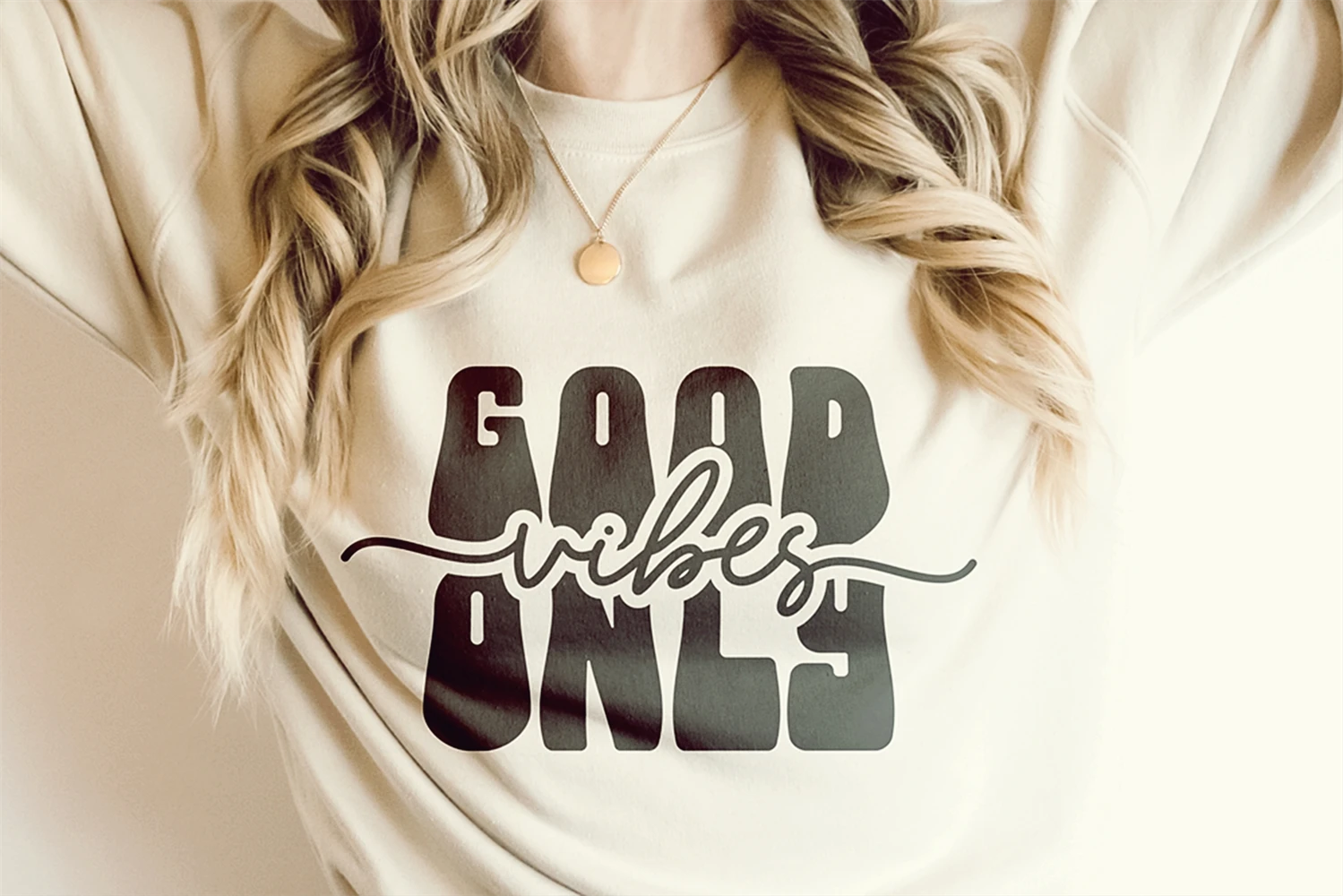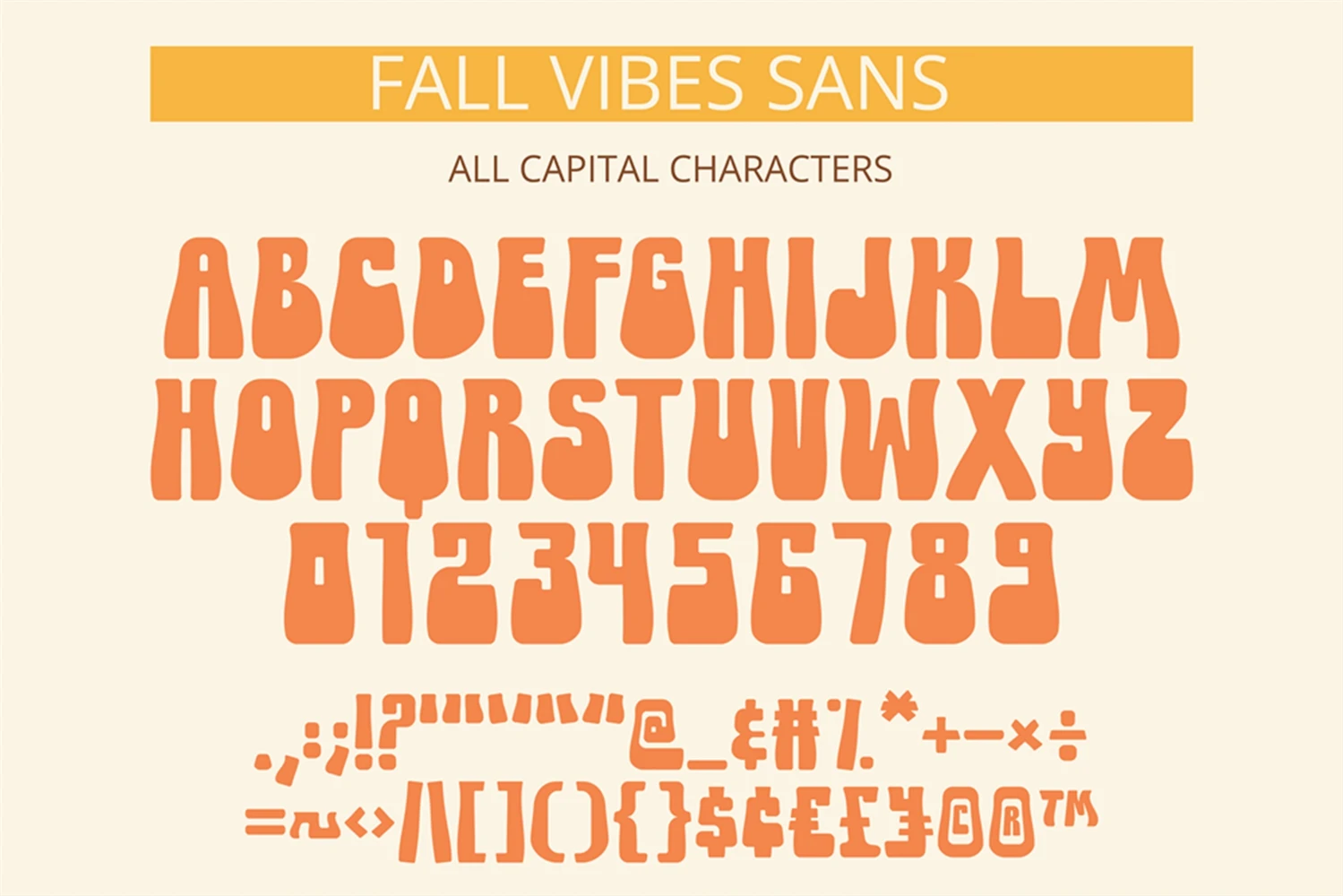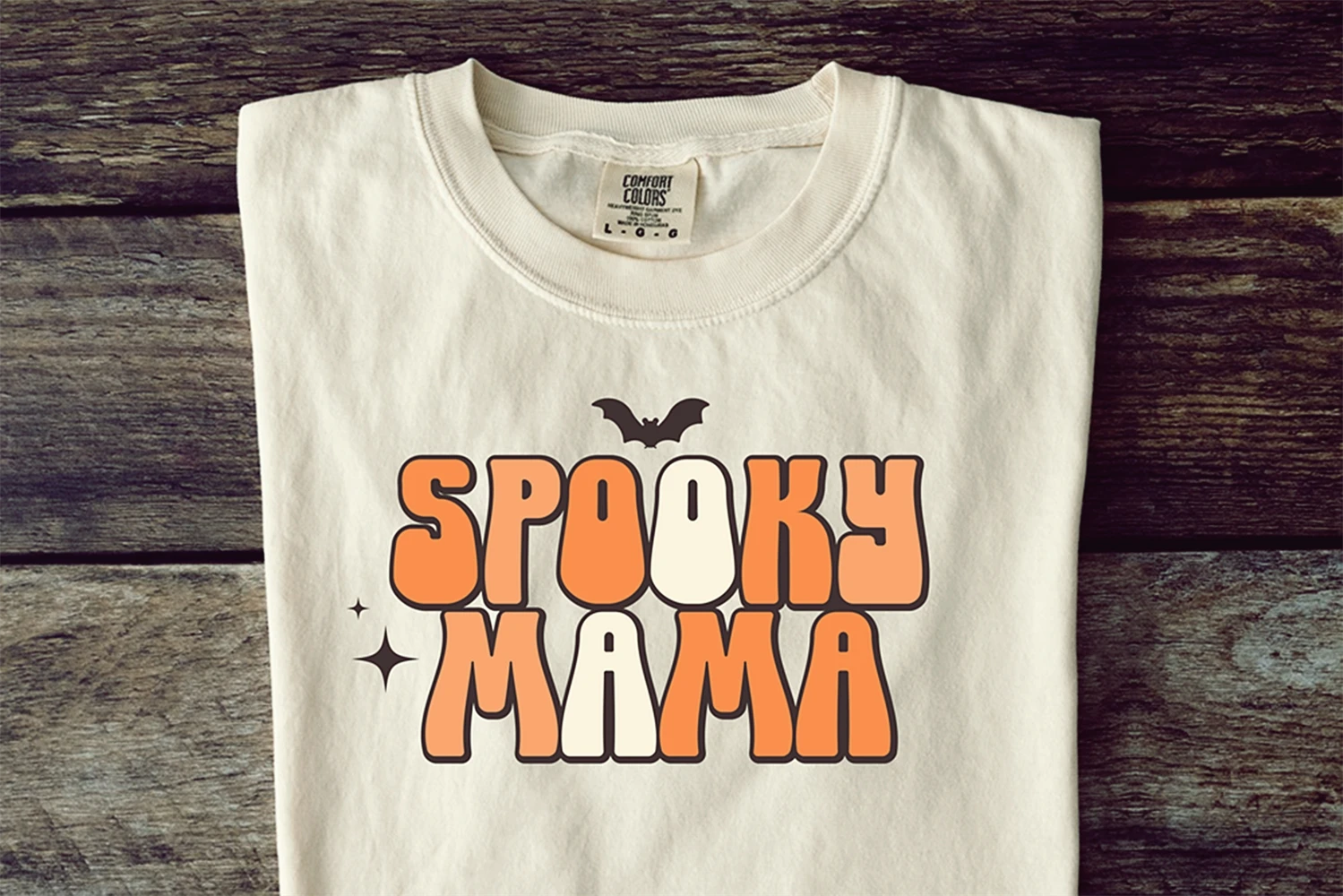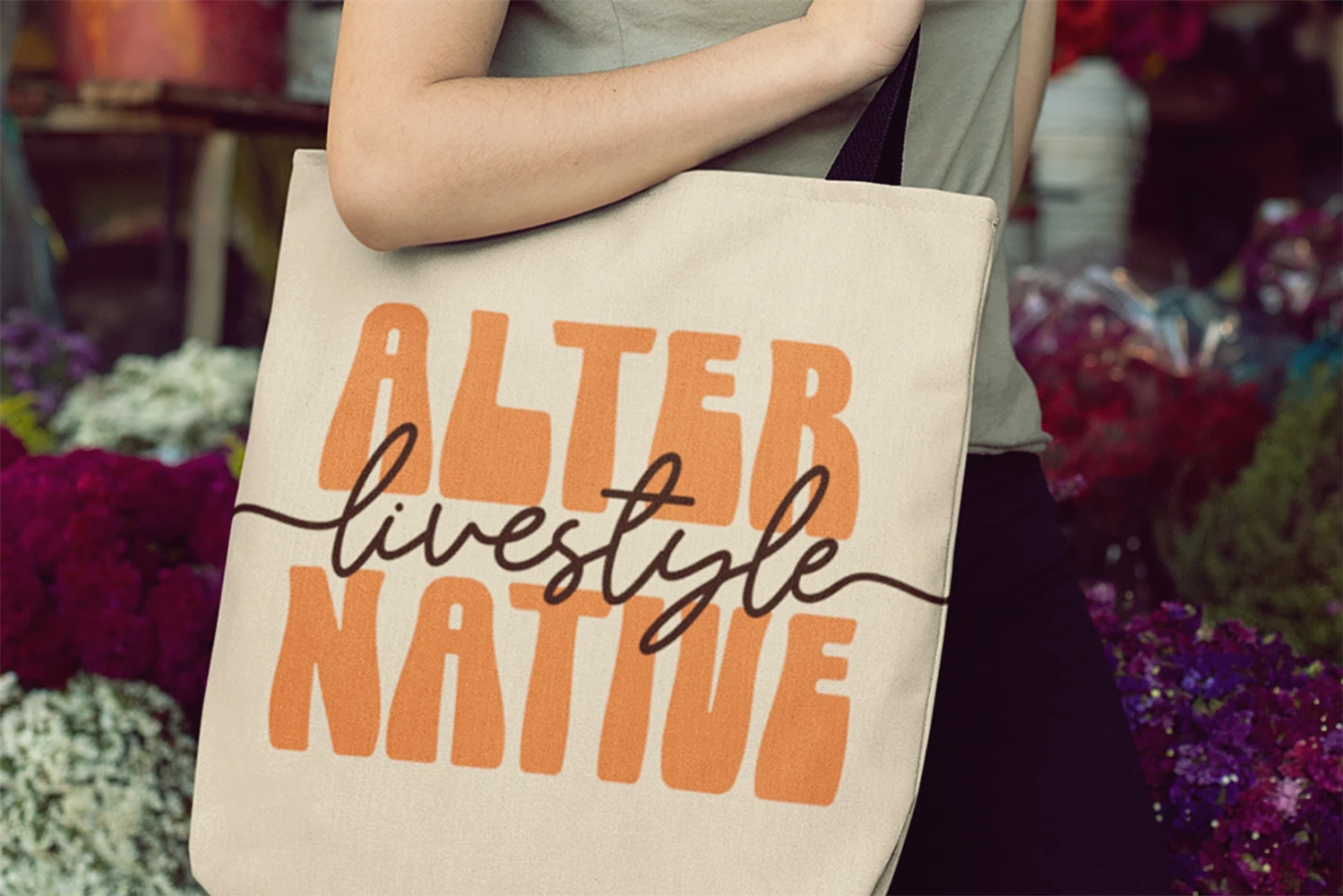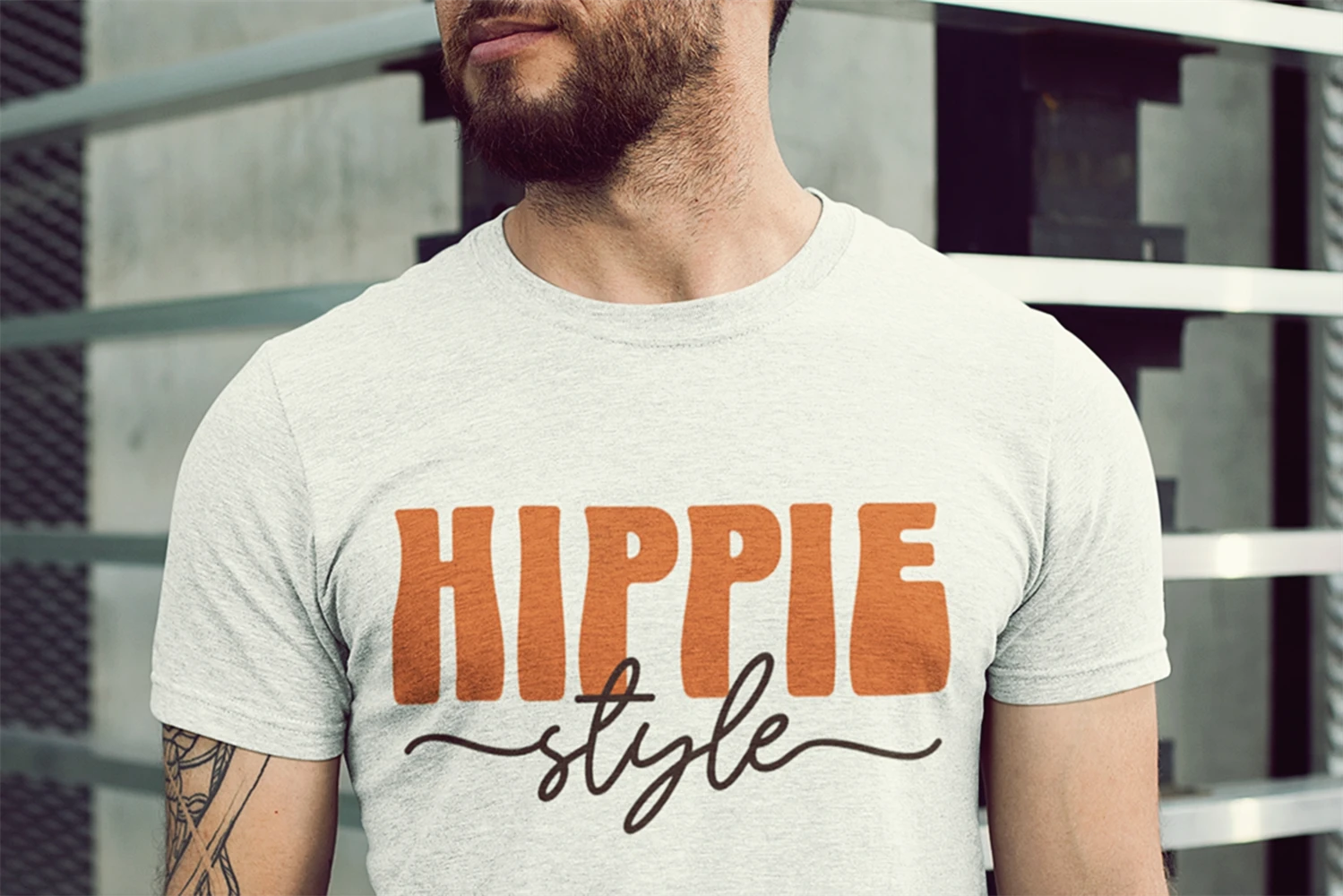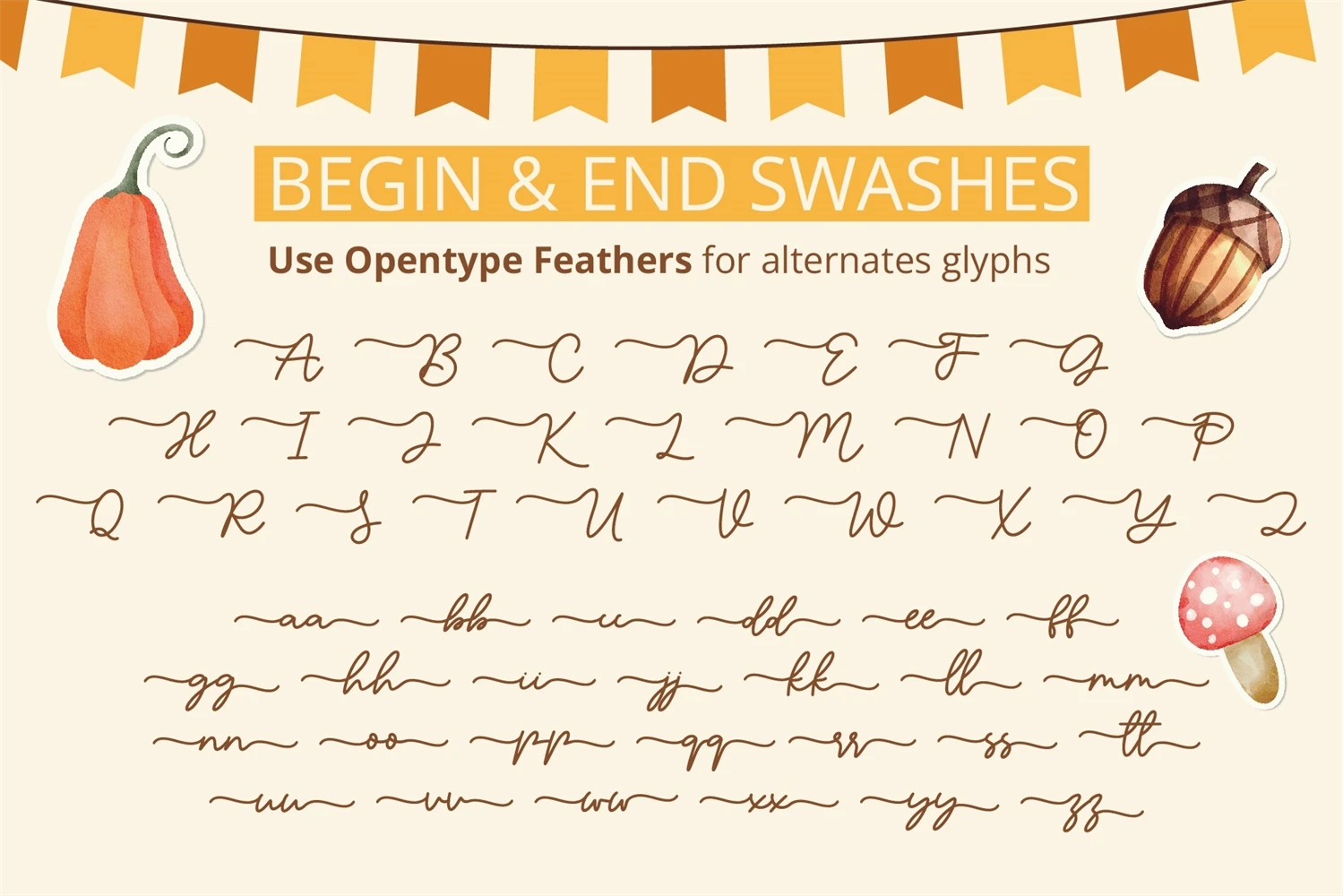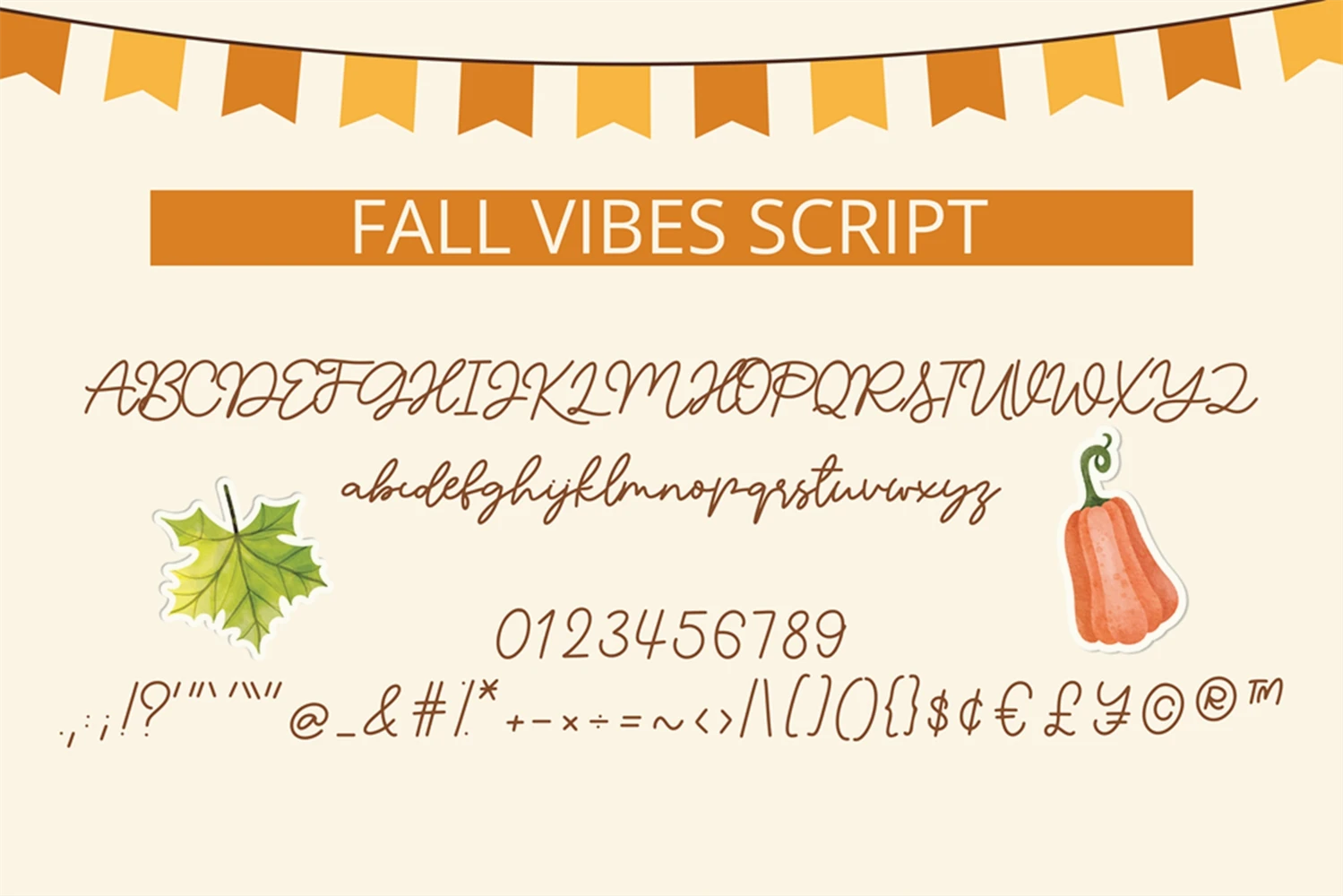
Fall Vibes Groovy is a cool retro display duo font. It is perfect for any hippie design that requires a groovy look and its guaranteed to make an impact. This font is PUA encoded, which means you can easily access all of the glyphs and swashes!
- Alternate swashes letter (begin swashes and end swashes)